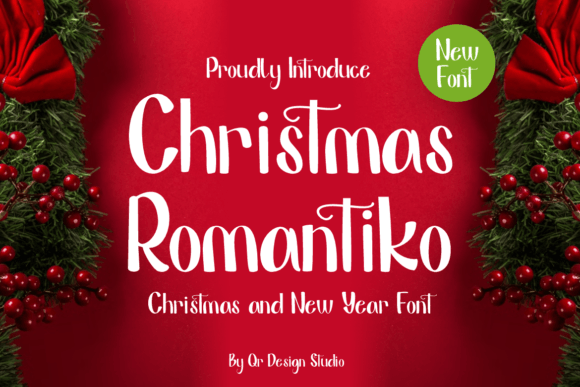
Introducing Christmas Romantiko Font, the perfect choice for anyone seeking the best fonts for a modern look! Created by qrdesignstd, this script font is not just your ordinary typeface. It's a sweet and friendly handwritten font that will captivate your senses and bring your designs to life in the most enchanting way possible.
With its natural and unique style, Christmas Romantiko Font adds a touch of elegance and sophistication to any project. Whether you're working on a holiday-themed greeting card, a wedding invitation, or a branding design, this font is your secret weapon to creating a truly memorable piece of art.
The versatility of Christmas Romantiko Font knows no bounds. It seamlessly blends with various design elements, making it incredibly fitting for a large pool of designs. Let your imagination run wild as you combine this font with illustrations, ornaments, or even photographs. The result? A harmonious masterpiece that leaves a lasting impression on anyone who lays eyes on it.
But what sets Christmas Romantiko Font apart from the rest? It's the emotion it evokes. This font has the power to transport you to a cozy winter wonderland, where the aroma of freshly baked cookies fills the air, and loved ones gather around a crackling fireplace. It's the feeling of warmth, joy, and nostalgia that makes this font truly special.
With its captivating curves and delicate strokes, Christmas Romantiko Font adds a personal and human touch to your designs. It's as if each letter was carefully handcrafted with love and attention to detail. This font breathes life into your words and gives them a personality of their own.